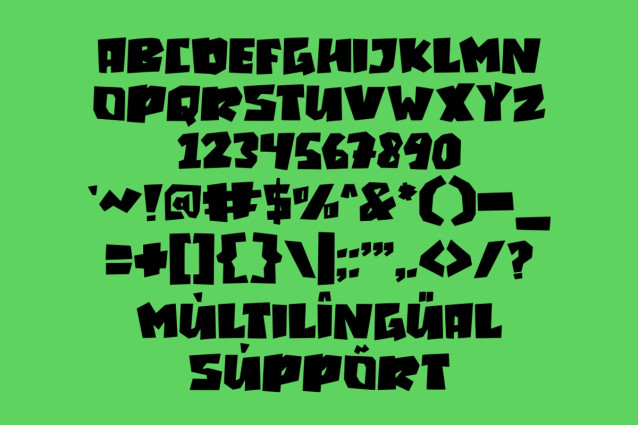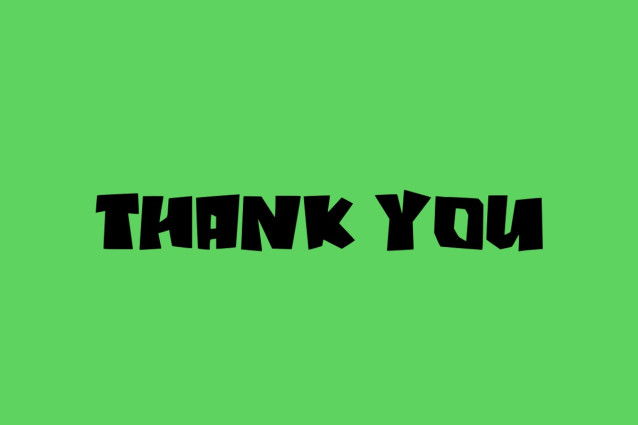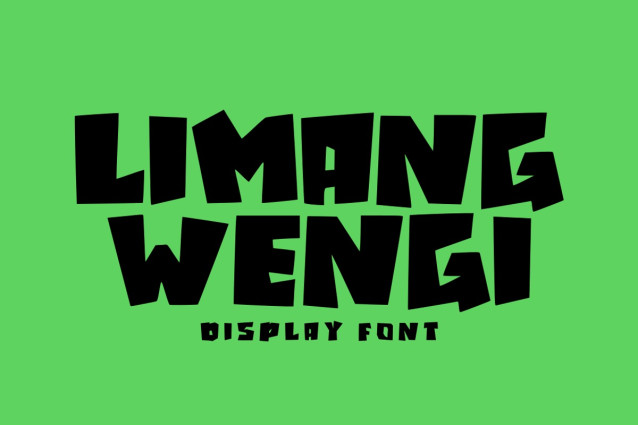
Limang Wengi Font
Limang Wengi Font is a chunky, comic, and cartoon display font. With its neat and joyful personality, this font will enhance any project you wish to create!